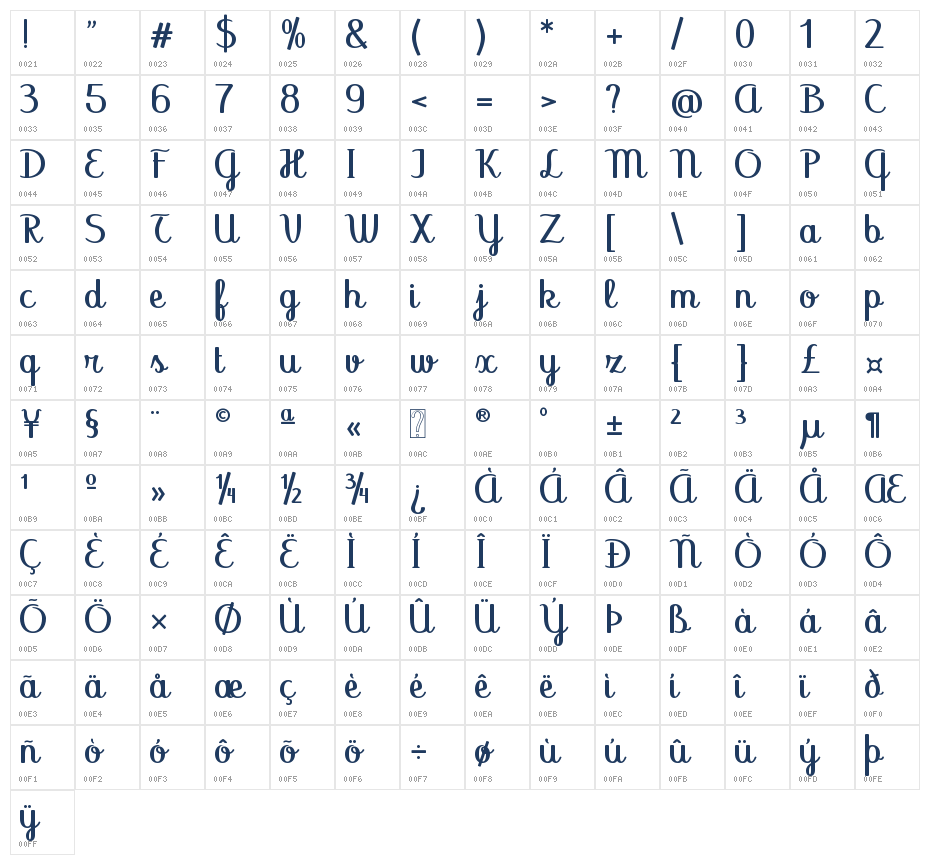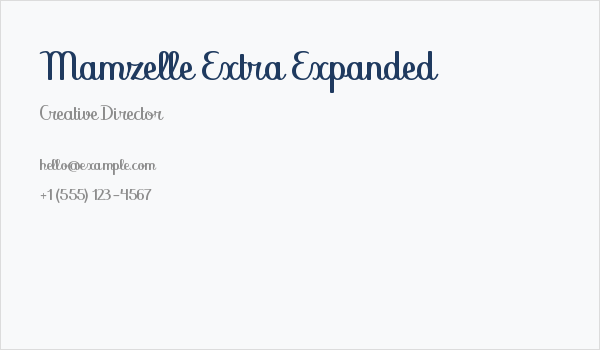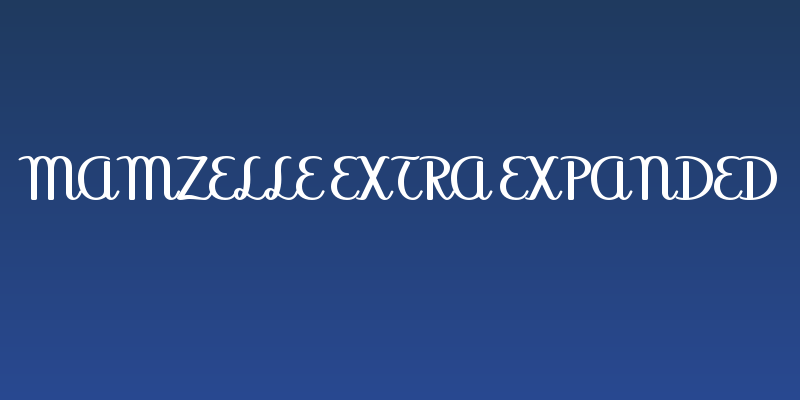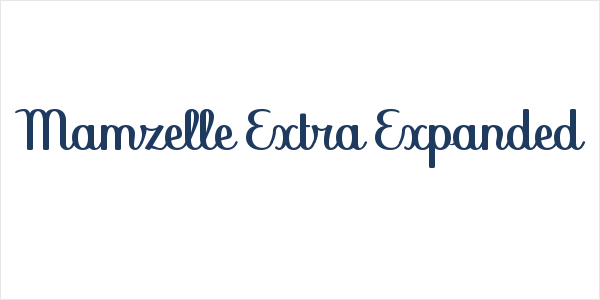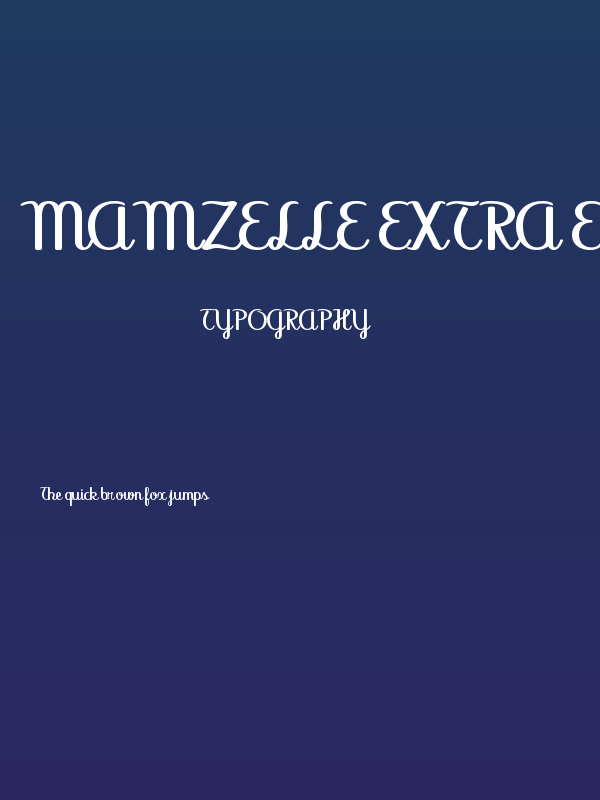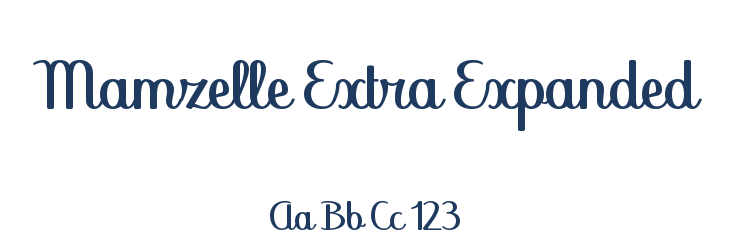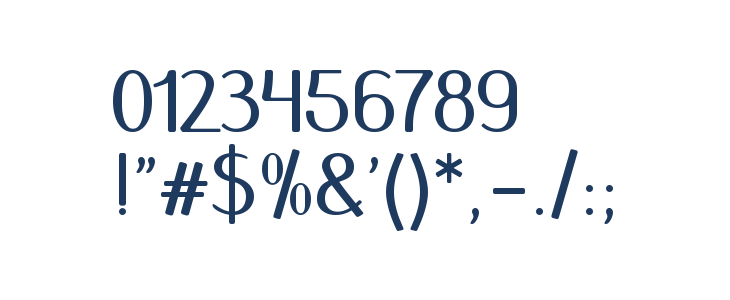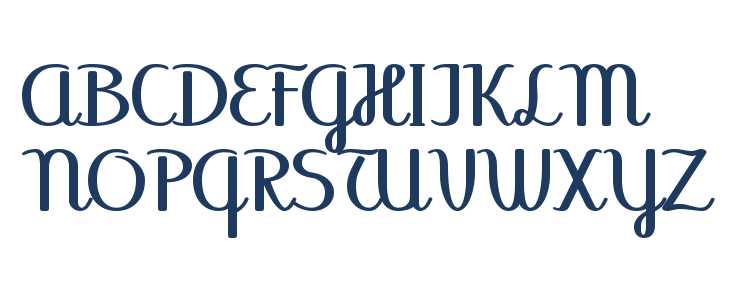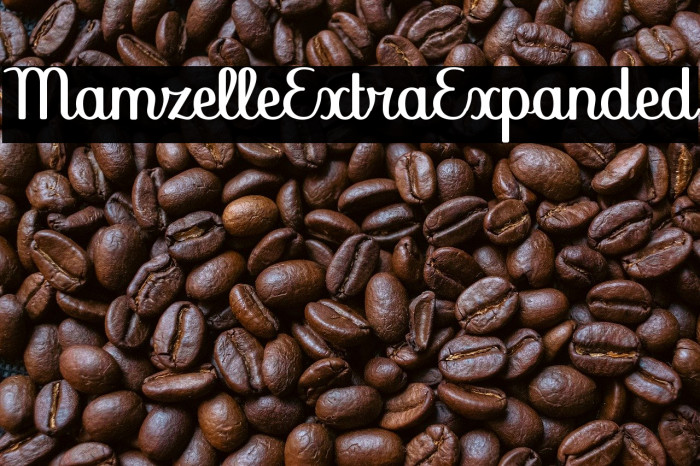
Mamzelle Extra Expanded Font
Mamzelle Extra Expanded Description
A decorative, cursive script font with a playful and elegant style, featuring smooth curves and varying stroke widths.
| Overall Style | Elegant, Playful, Decorative |
| Use Case | Invitations, Greeting Cards, Logos, Branding, Packaging, Decorative Headings |